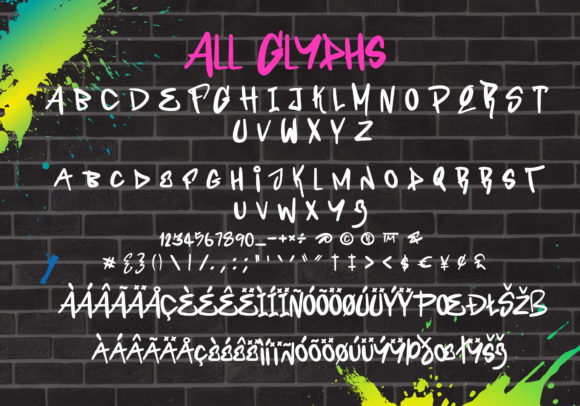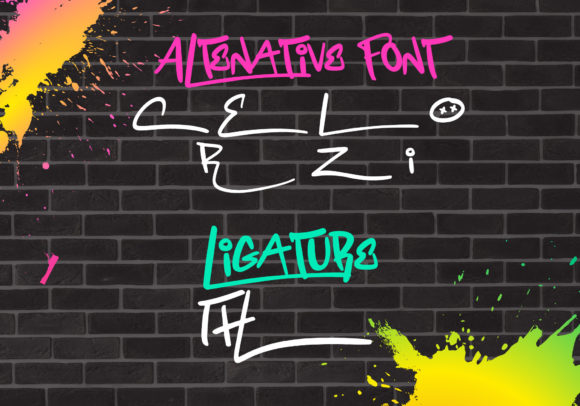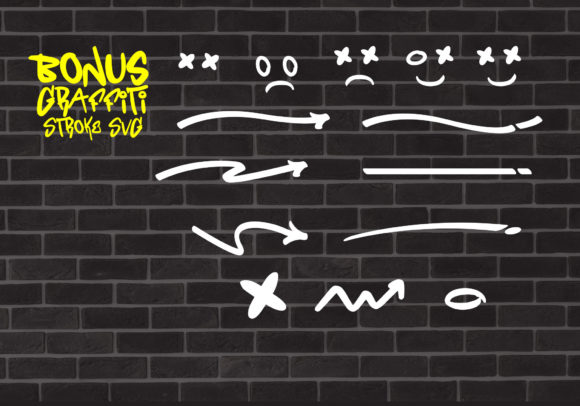
Introduction to Sky Fall Font
Do you remember the rush of creativity that comes when you stumble upon the perfect design resource? Maybe it’s the spark of inspiration that hits you in the middle of a brainstorming session, or the thrill of discovering a game-changing font that elevates your entire creative project. For designers, this feeling is priceless, and it’s what makes the discovery of a high-quality font like Sky Fall Font truly special.
With its bold, graffiti-styled display, Sky Fall Font is perfect for adding a touch of street art vibe to your designs. Whether you’re creating a t-shirt, sportswear logo, or advertisement, this font is sure to grab attention. Plus, with a transparent background, you can easily overlay it on any image or background, giving you complete creative control. And the best part? Sky Fall Font is available for free download, making it an invaluable resource for designers on a budget.
Key Features of Sky Fall Font
- High-quality design resource suitable for various creative projects, including digital art and print media.
- Features a transparent background, making it ideal for use on complex backgrounds and designs.
- Unique, modern design with a blend of futuristic and minimalist elements.
- Supports various font sizes and resolutions, ensuring it remains clear and legible at different scales.
- Perfect for designers and artists looking for a high-quality, free font to elevate their creative project.
Honest Review: Sky Fall Font
As a designer, I’m always on the lookout for high-quality design resources to elevate my creative projects. The Sky Fall Font is one such resource that caught my attention, and I’m excited to share my honest review with you.
Here’s what works well about the Sky Fall Font: ✨ It’s a free download, which is a massive plus for designers working on tight budgets. The font itself is beautifully designed, with a modern and sleek aesthetic that’s perfect for contemporary projects. It also comes with a transparent background, making it easy to use in a variety of design contexts.
- High-quality design with a modern aesthetic
- Transparent background for easy use
However, I do have some limitations to report: ⚠️ The font may not be suitable for projects that require a lot of bold or dramatic typography. Additionally, the font family is relatively small, so you may not have as many style options as you’d like.
Overall, I’m impressed with the Sky Fall Font, and I think it’s a great addition to any designer’s toolkit. While it may have some limitations, its high-quality design and free download make it a worthwhile resource for any creative project.
Tips for Getting the Most Out of Sky Fall Font
To get the most out of the Sky Fall Font, be sure to experiment with different font sizes, colors, and styles. You can also use the font in combination with other design elements to create a unique and eye-catching design.
Common Use Cases for Sky Fall Font
The Sky Fall Font is perfect for use in a variety of design applications, including logo design, infographics, and marketing materials. It’s also a great choice for use in social media graphics and other online content.